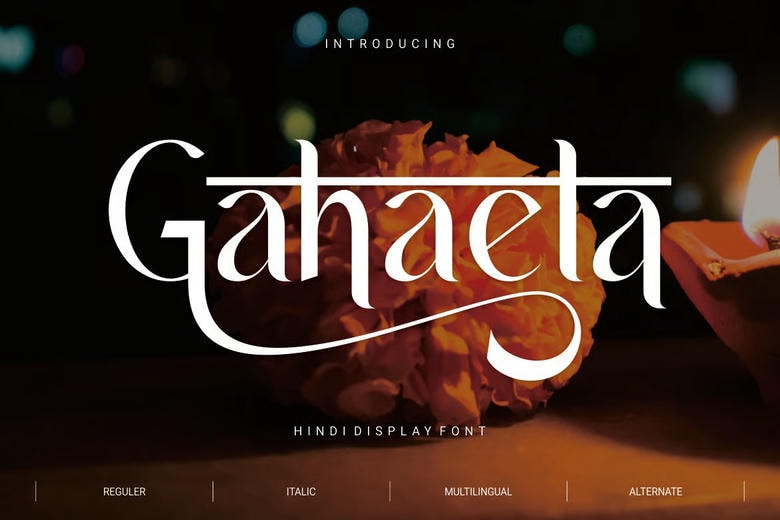
Gahaela Font
Gahaela is a bold and modern condensed typeface. With its bold and impactful lines and distinctive cut details, Gahaela is ideal for creating eye-catching headlines, logos, and posters. Its bold and blocky letters convey strength and confidence, making it ideal for projects that need to stand out and make a lasting impression.
Whether you’re design for advertising, fashion, or creative branding, Gahaela robust, condensed style is a versatile solution for adding visual impact to your design.
Gahaela Serif Font